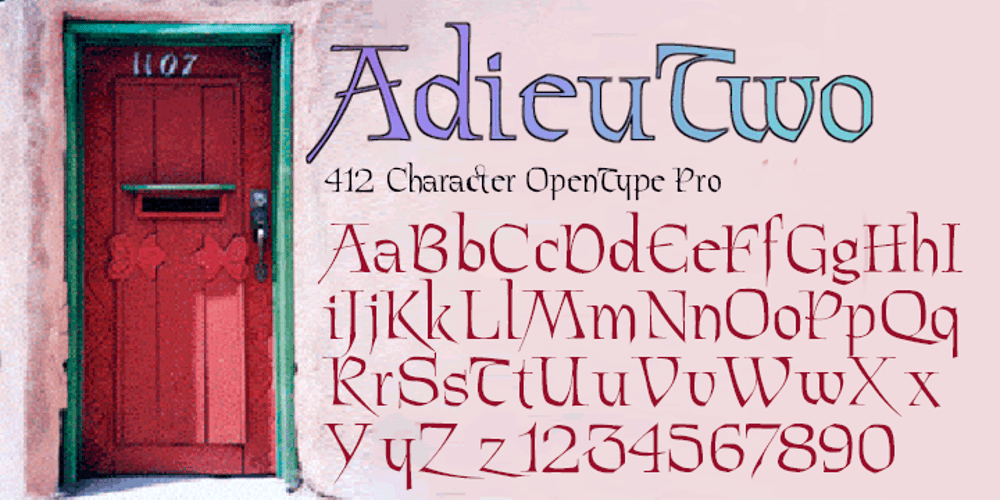
Adieu Two Pro Font Family was designed by David Bergsland and published by Hackberry Font Foundry. Adieu Two Pro contains 1 styles and family package options. AdieuTwo is a radical revision of Adieu which was a revision of my original font, Chivalry, that was traced from Chevalier back in the mid-1990s. Its roots are obvious, but this one has small caps, small cap figures, oldstyle figures, ligatures, and more. This is a thoroughly up-to-date font ready to be used for stylish heads.